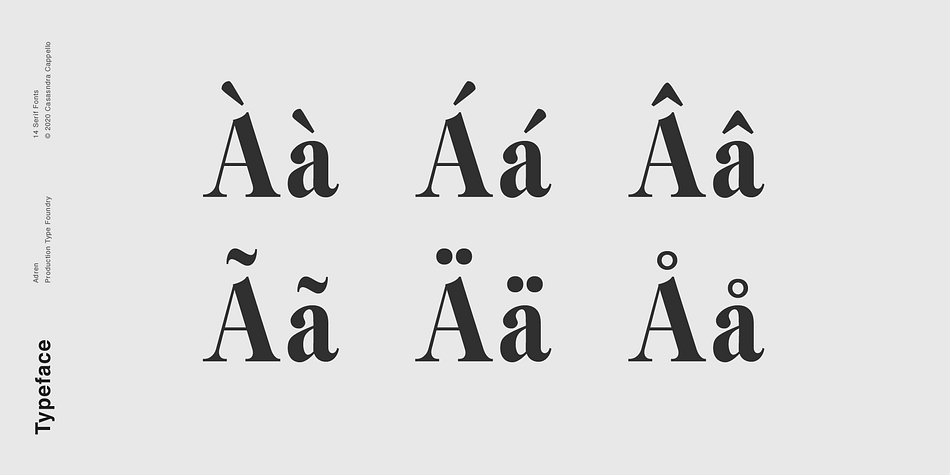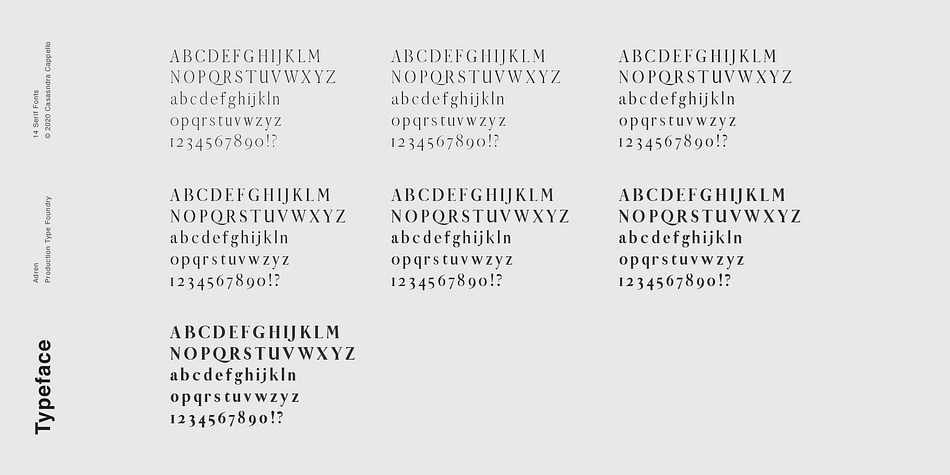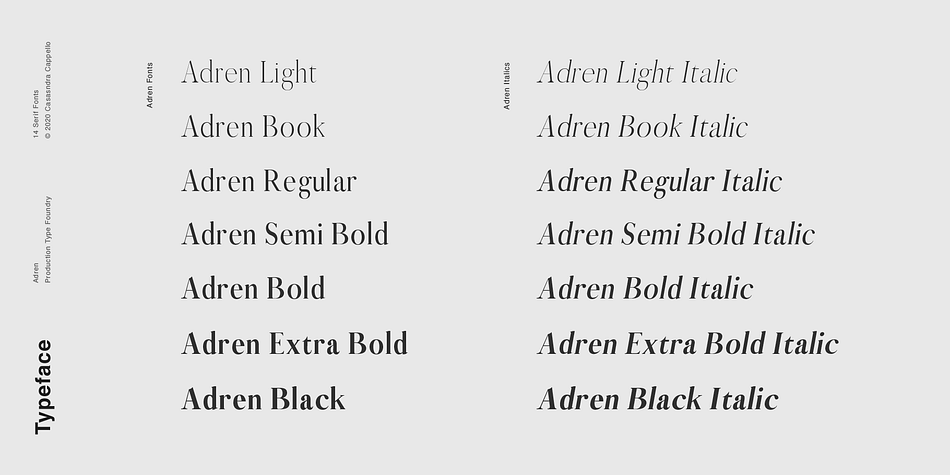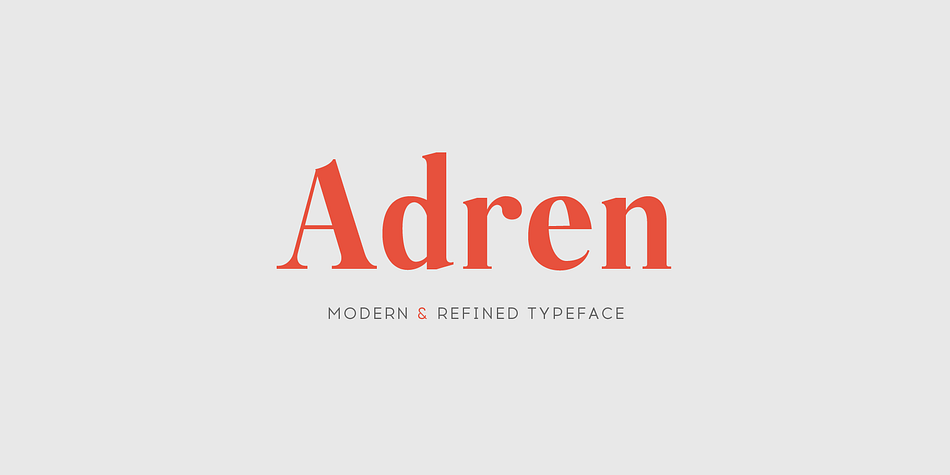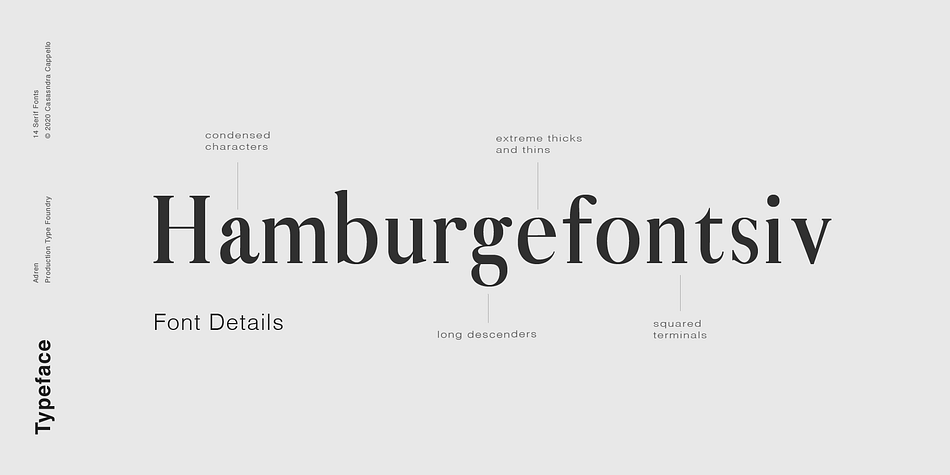
Designed by Cassandra Cappello, Adren is a display serif and serif font family. This typeface has fourteen styles and was published by Cappello Designs.
Adren is a modern, refined, slightly condensed serif typeface. It’s a modified Modern style Serif typeface. Modern typefaces originated in the 18th century, classically characterized by their exaggerated thicks and thins. Adren has been updated for readability with a larger x-height and bracketed serifs.
It was mainly made to be used for headers and subheaders. However, it could be used for body copy if you so choose. This font family includes all Latin characters (including accents), numbers, special characters, and punctuation.